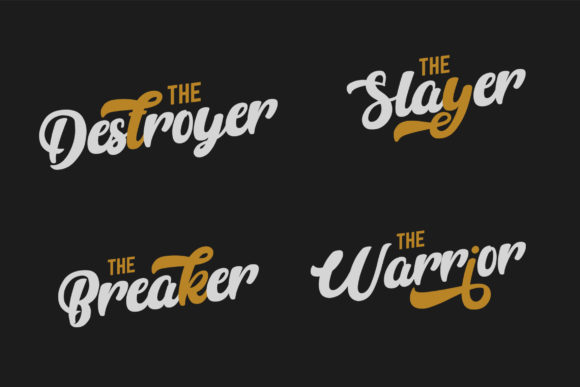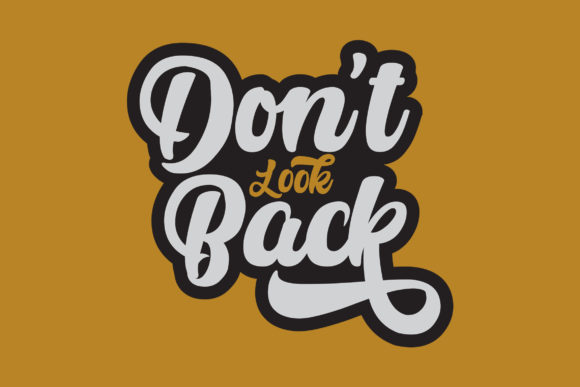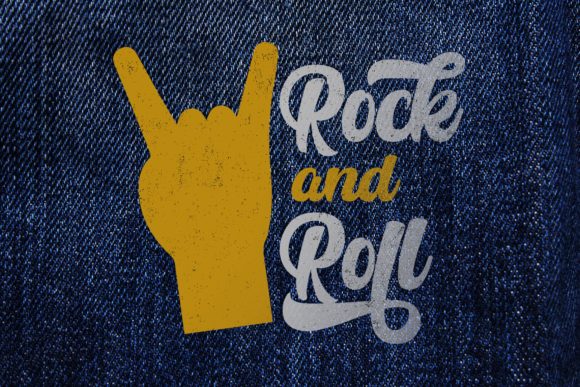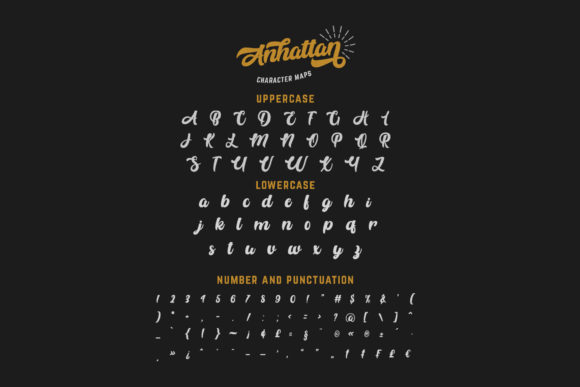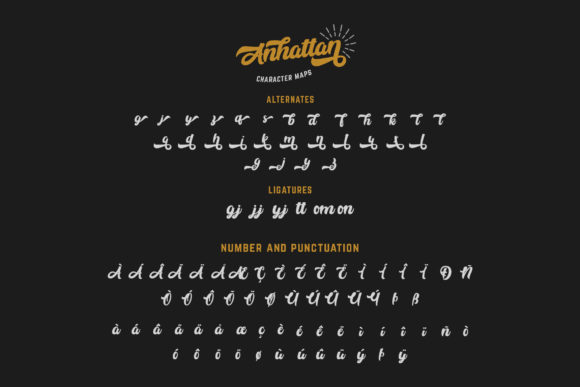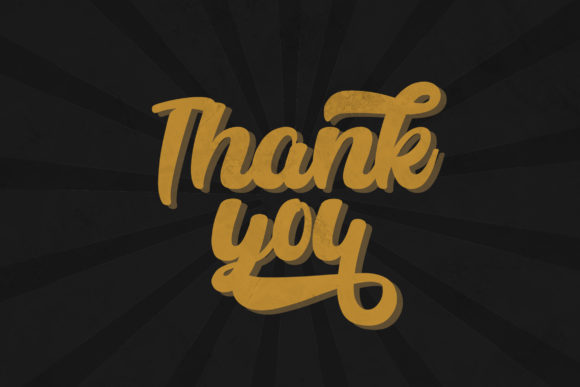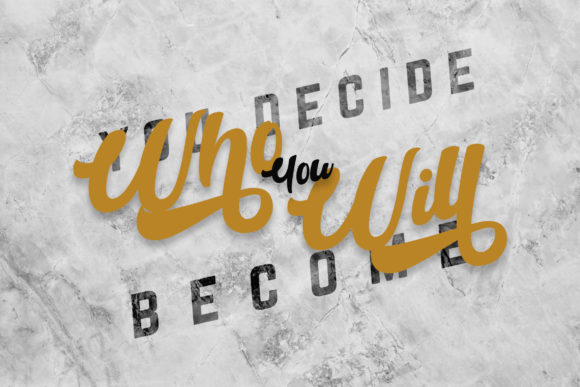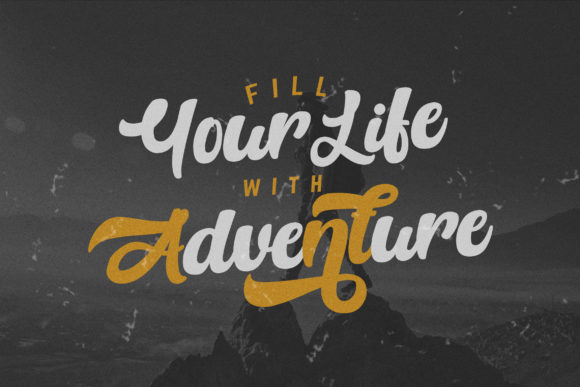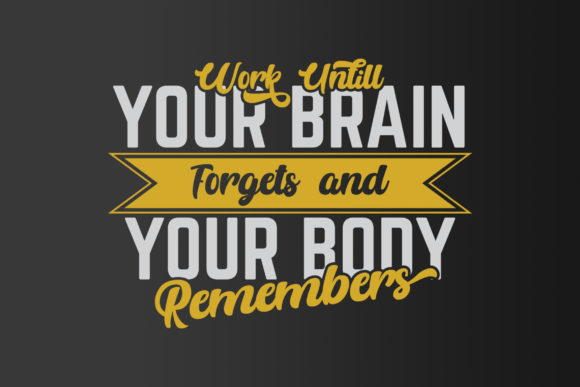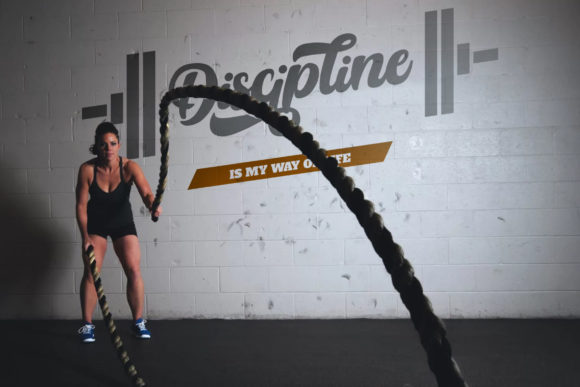
HomeScript FontsAnhattan Font Script Fonts Anhattan Font FacebookXPinterestWhatsApp Anhattan Font Poster 2 Anhattan Font Poster 3 Anhattan Font Poster 4 Anhattan Font Poster 5 Anhattan Font Poster 6 Anhattan Font Poster 7 Anhattan Font Poster 8 Anhattan Font Poster 9 Anhattan Font Poster 10 Anhattan Font Poster 11 Anhattan Font Poster 12 Anhattan Font Poster 13 Anhattan Font Poster 14 Anhattan Font Poster 15 About Anhattan Font Anhattan is a nostlagic retro script with a fun feel. Get inspired by its vintage aesthetic! DOWNLOAD ON CREATIVE FABRICAThis font is sold and delivered by Creative Fabrica. Font Canyon may earn a commission if you buy through this link. People also explored Rabbit Escape Bajt Rounded Homely Font Haiti Font Calledliner Font Bulgaria Emilton Font Destone – 2 Styled Font Starburst Mahegrena Font 277 0 TagsAnhattan Font Previous articleAlevattros FontNext articleHegemony Font LEAVE A REPLY Cancel reply Comment: Please enter your comment! Name:* Please enter your name here Email:* You have entered an incorrect email address! Please enter your email address here Website: Save my name, email, and website in this browser for the next time I comment. Personal Use Free Good Timing – Bold Personal Use Free Read more about this font Juliagar Personal Use Free Read more about this font Cottage Personal Use Free Read more about this font Peachy Rose Personal Use Free Read more about this font BLOG Fonts That Capture the Spirit of New York City New York City is more than just a place—it’s an experience, a rhythm, a visual language... To increase your work productivity, choose the most readable fonts. Free vs Paid Fonts: Why Investing in Premium Fonts Is Worth It Exploring Font Trends